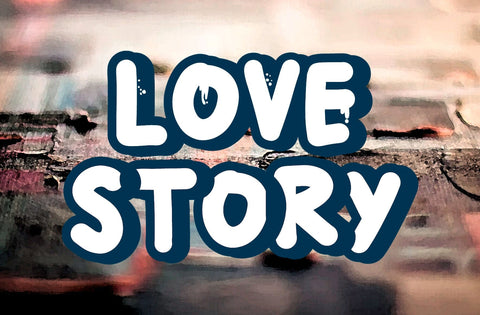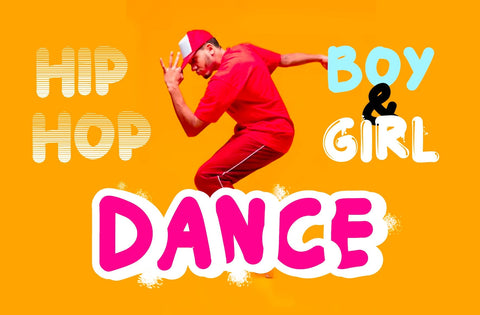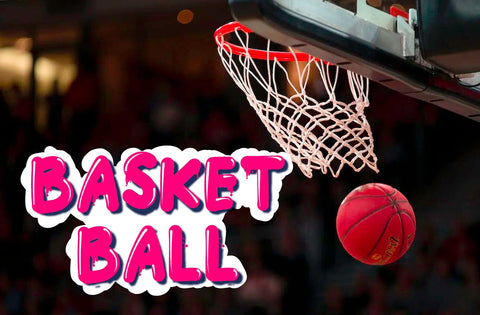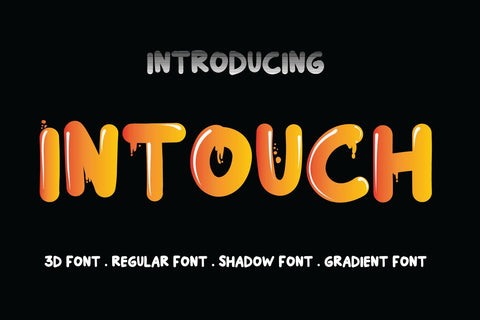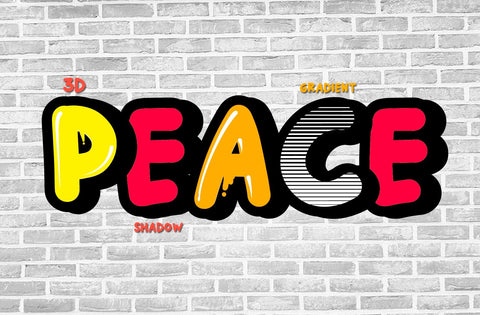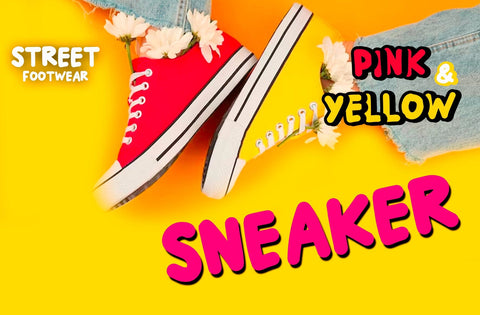
Intouch - 3D Display Font
Intouch is a cool, and display font that has a cool and funny, street art vibe. A playful all-caps Display font that includes four versions font of each letter which can be used separately or on top of each other to achieve a different look. This font is PUA encoded which means you can access all of the glyphs and alternates with ease! (please type the preview to see if I have what you need!)